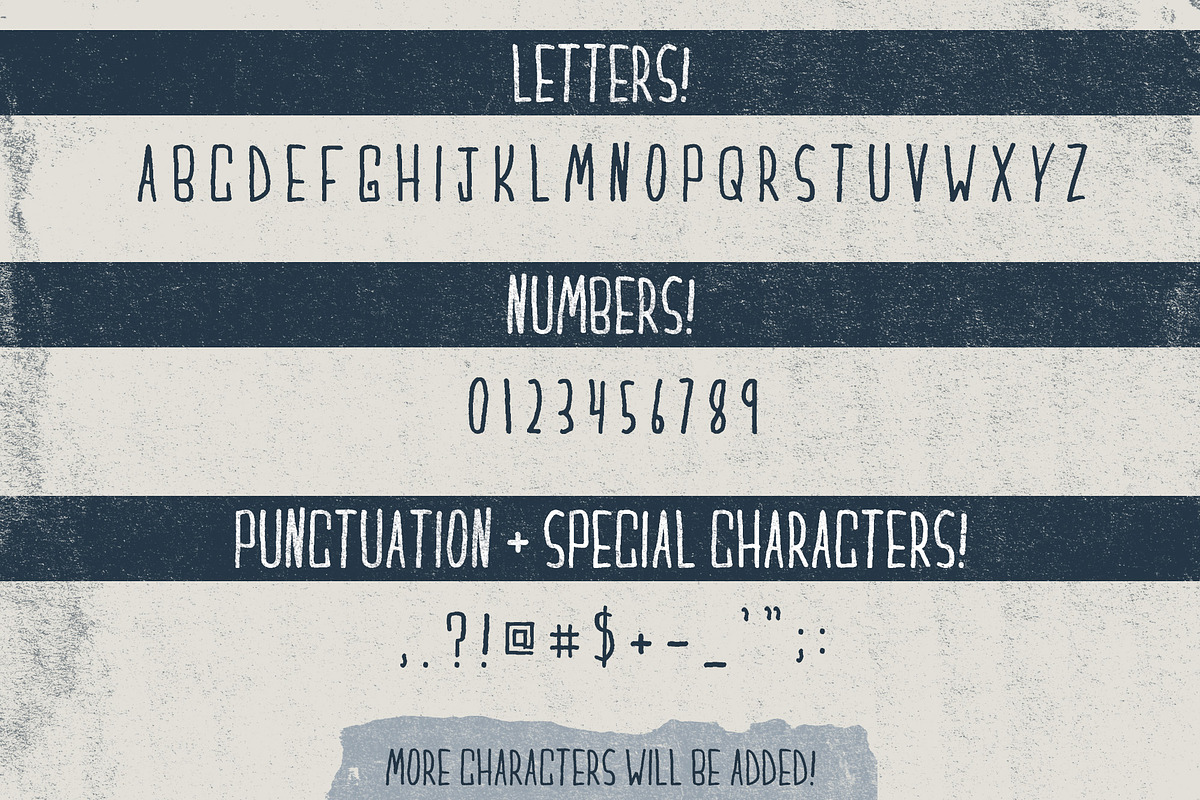
Mark-It handwritten font
Mark-It handwritten font by Texture Club is a font selected for branding, posters, packaging, typography.
Why Mark-It handwritten font is worth a look
Mark-It handwritten font by Texture Club fits naturally into Branding, posters, packaging, typography.